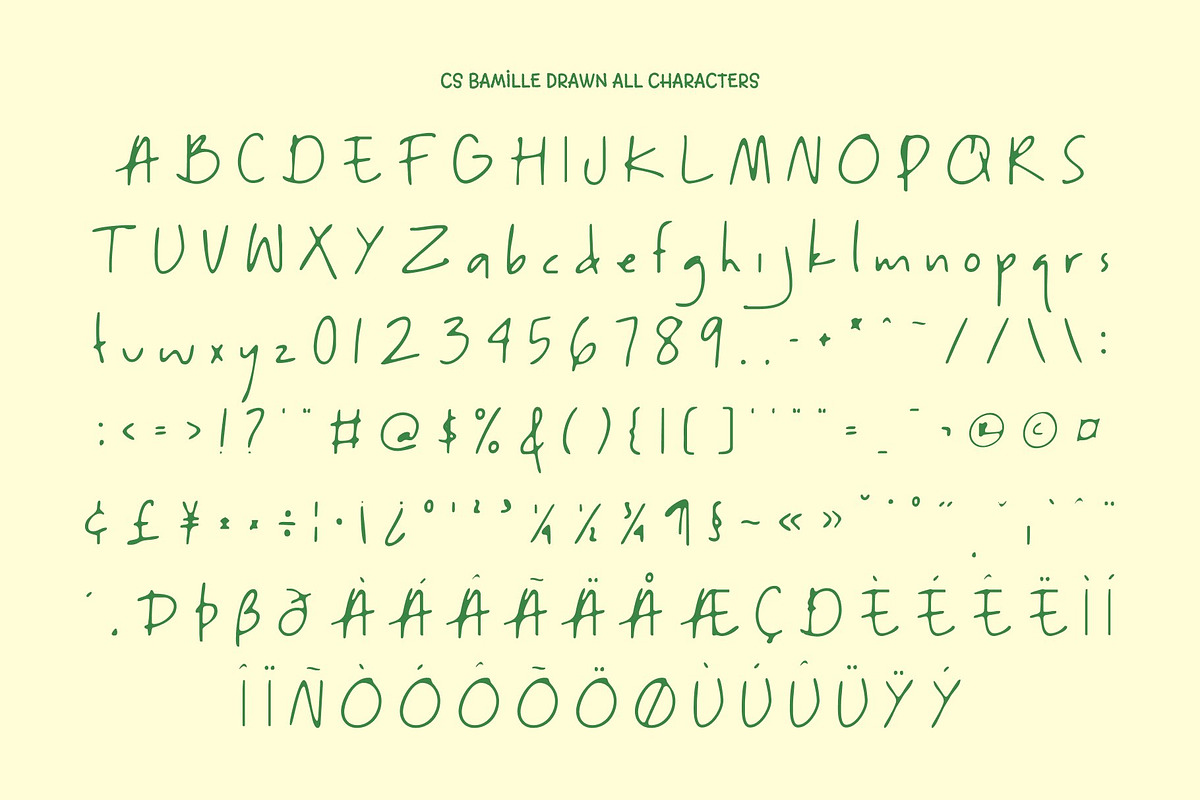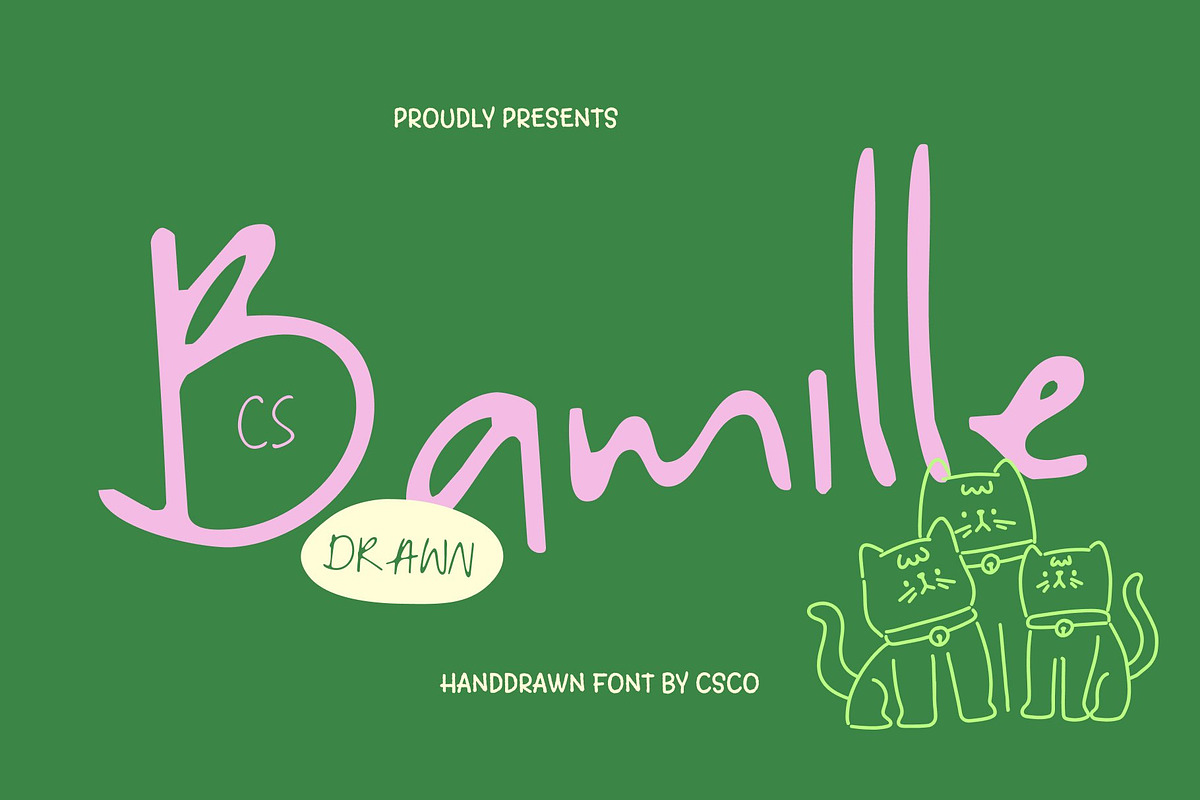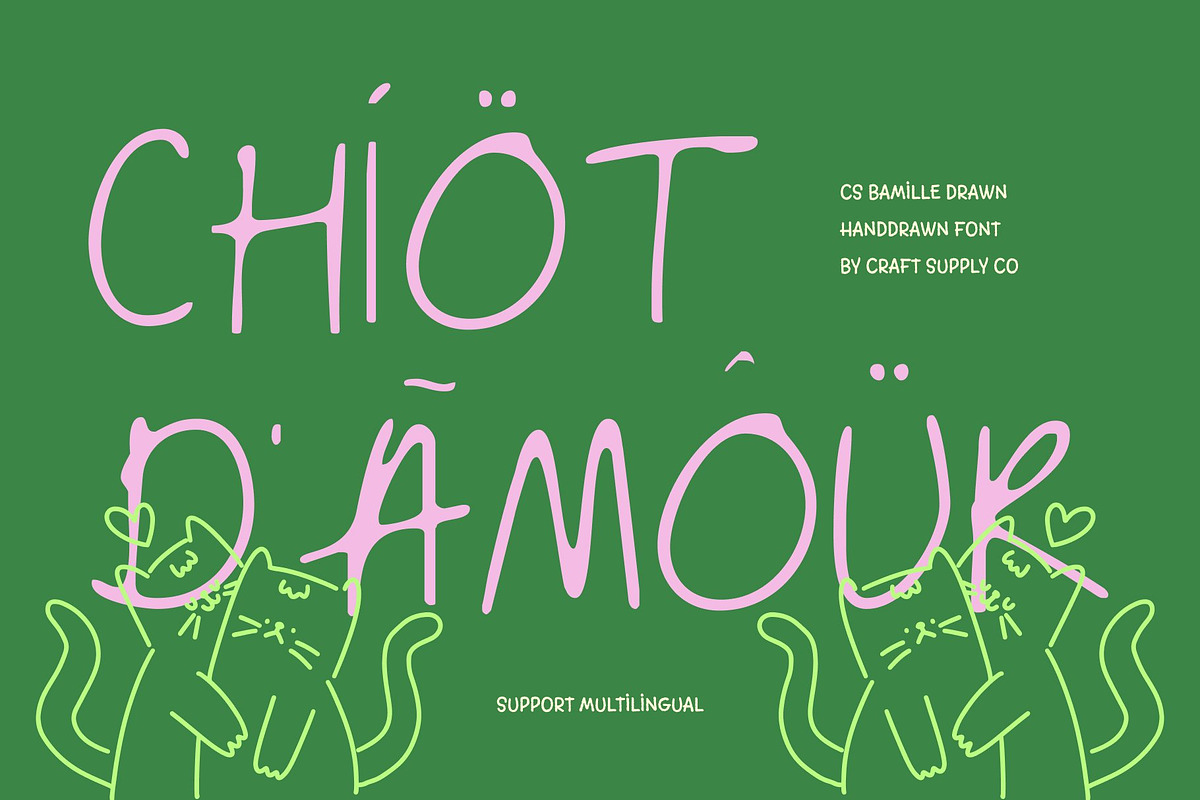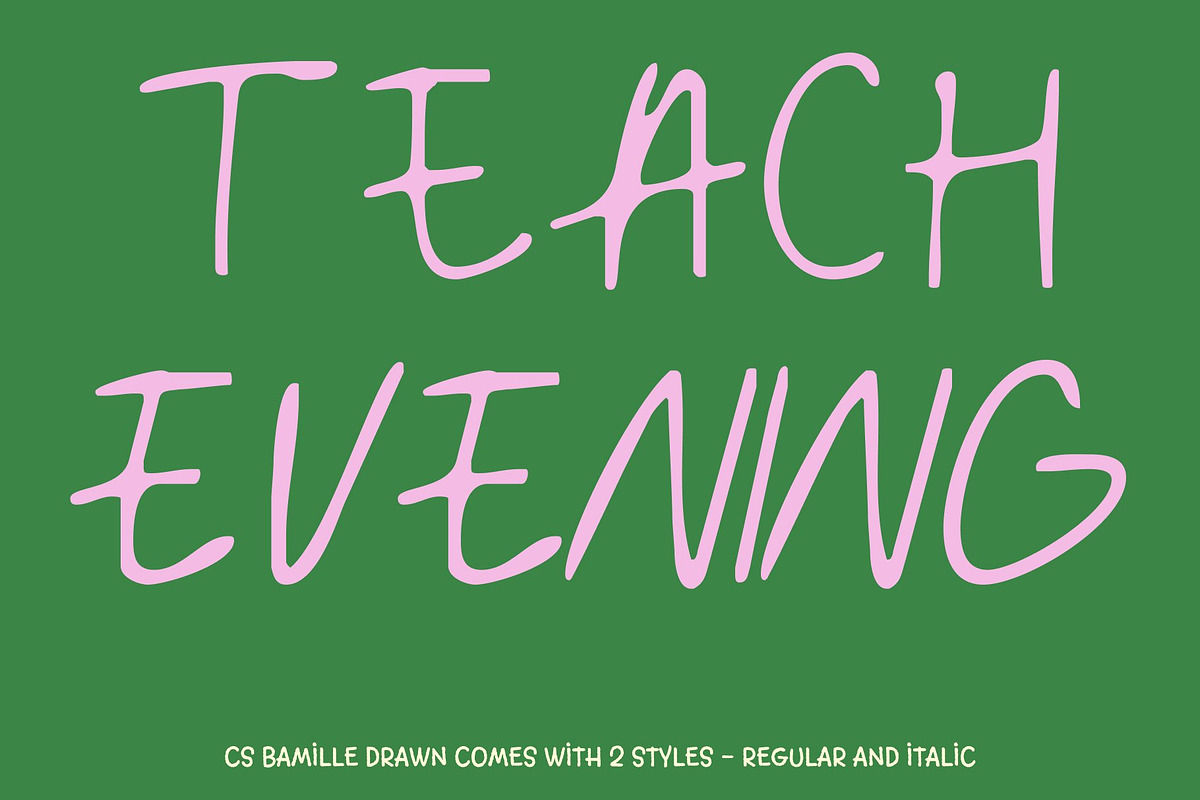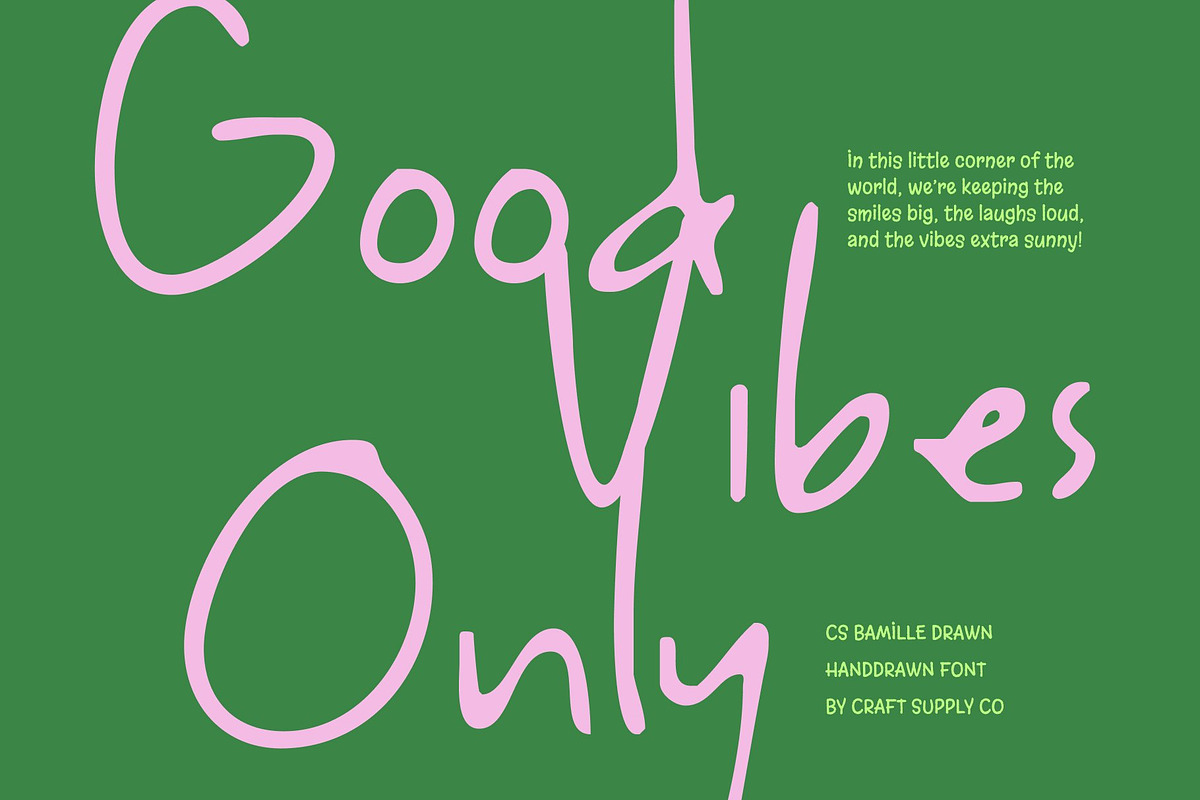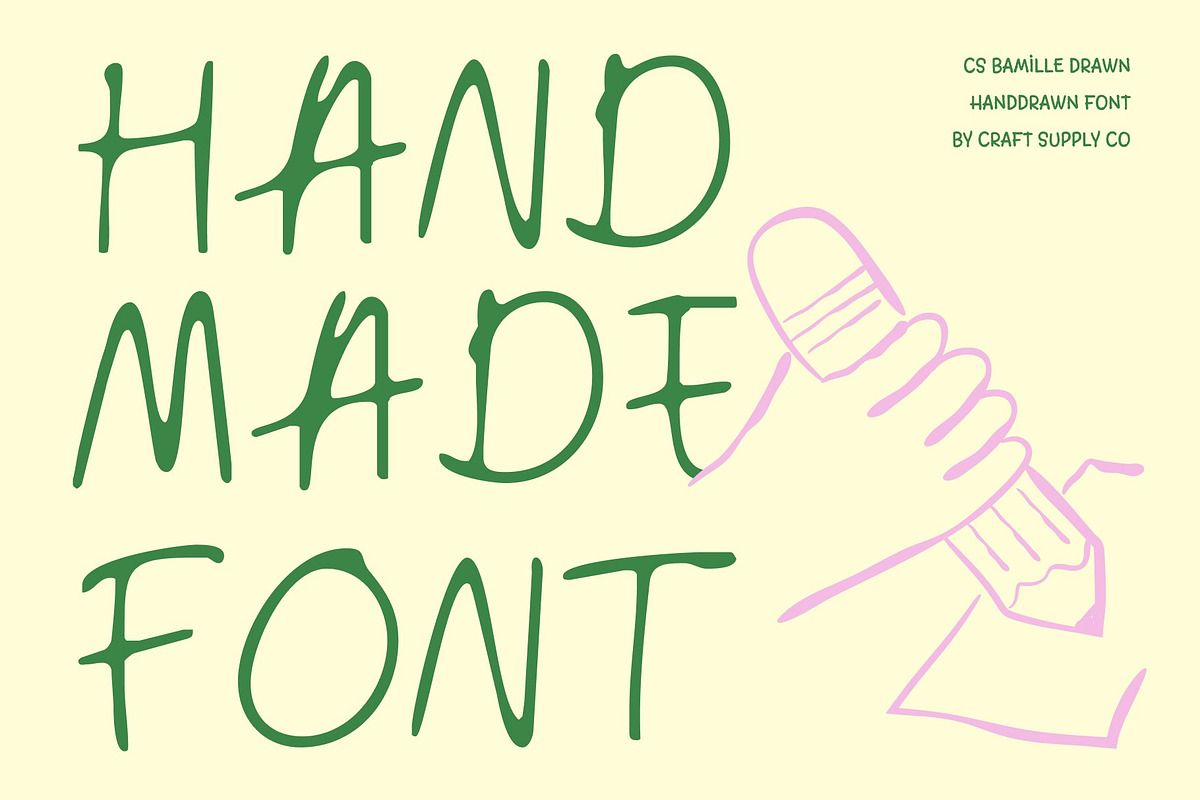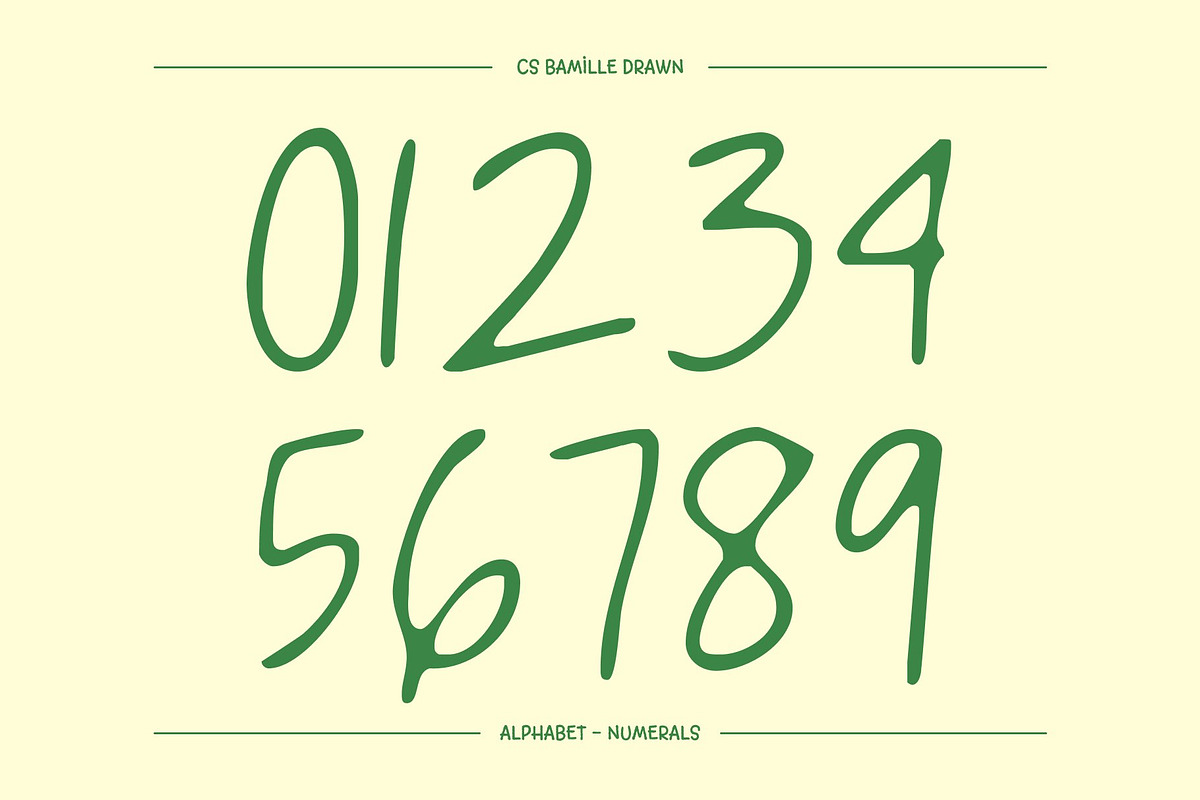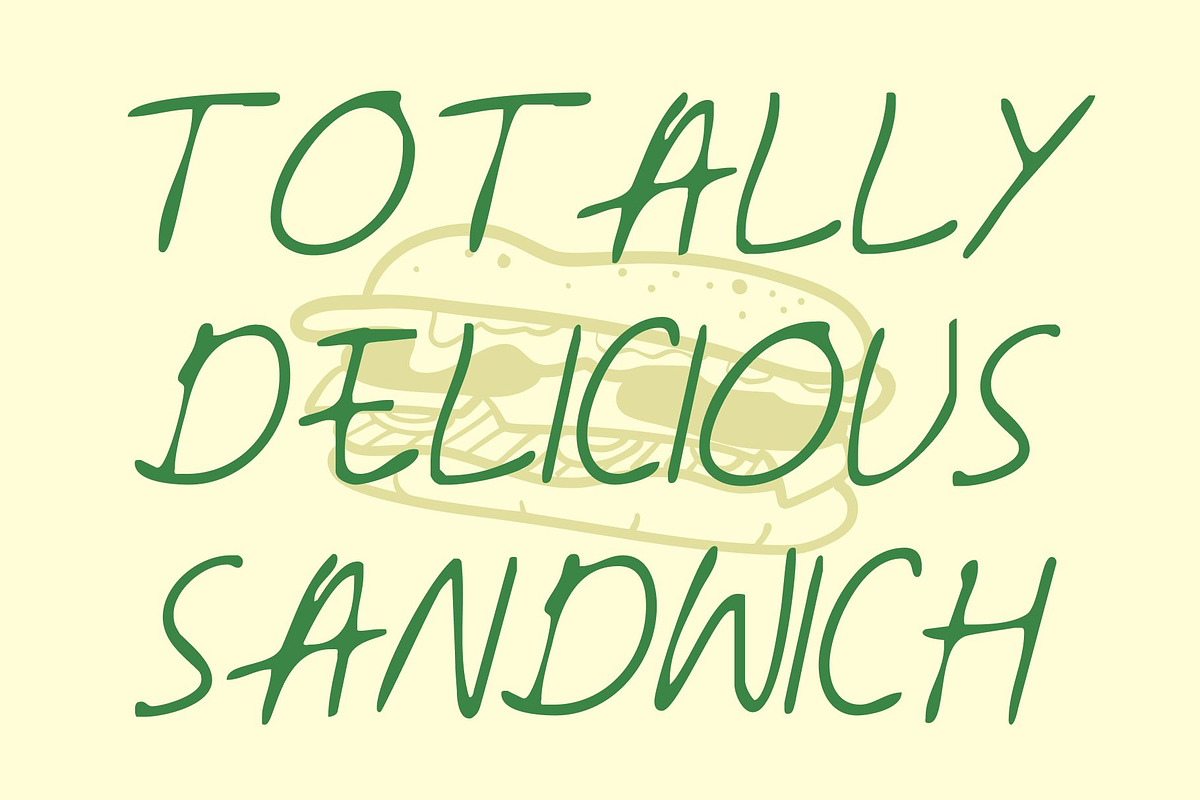
CS Bamille Drawn
CS Bamille Drawn – A Handwriting Font with Warm Authenticity
Soft and Expressive Style This is a handwriting font created to capture the charm of natural pen strokes. Its fluid, organic forms give each letter a soft and expressive feel, bringing warmth and authenticity to any design. The drawn texture enhances its handcrafted character, making the font feel personal and inviting.
Authenticity in Every Curve With its handwritten sans serif style, this font conveys sincerity and natural elegance. Every curve feels relaxed and unforced, adding personality and depth to text. The subtle imperfections create a genuine, human quality that helps designs feel more relatable and emotionally connected.
Perfect for Personal Branding and Quotes This font excels in personal branding where individuality and warmth matter most. It also works beautifully for inspirational quotes, social media graphics, and lifestyle content, ensuring messages feel heartfelt, approachable, and expressive.
Versatile for Invitations and Casual Designs This font adapts effortlessly to casual invitations, greeting cards, journals, and creative layouts. Suitable for both print and digital use, it delivers a consistently friendly, stylish, and authentic appearance across all media.